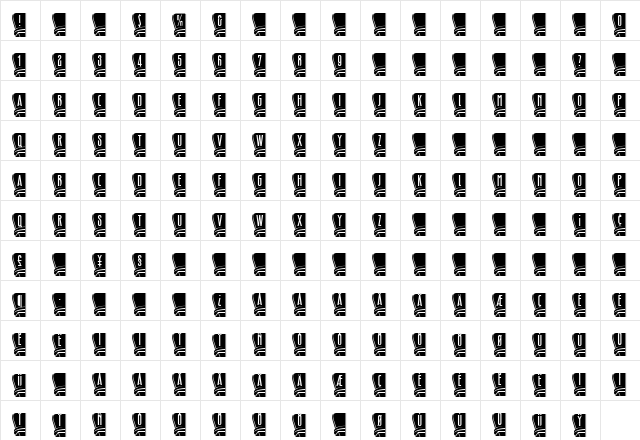
TFHotelmoderne Regular
Design Context for TFHotelmoderne Typeface
TFHotelmoderne is a composed and adaptable typeface that performs quietly and consistently across a wide range of design contexts.